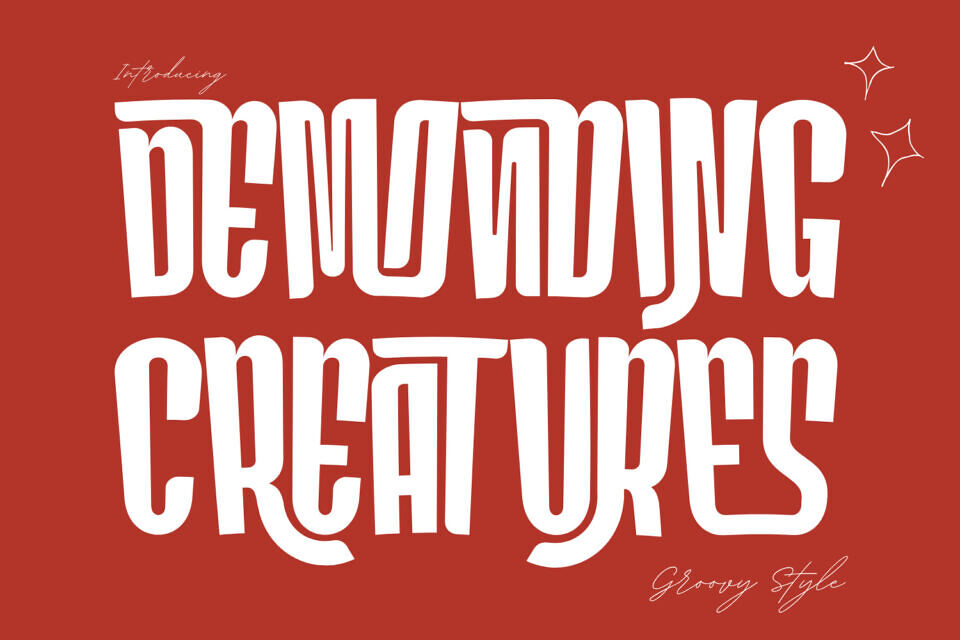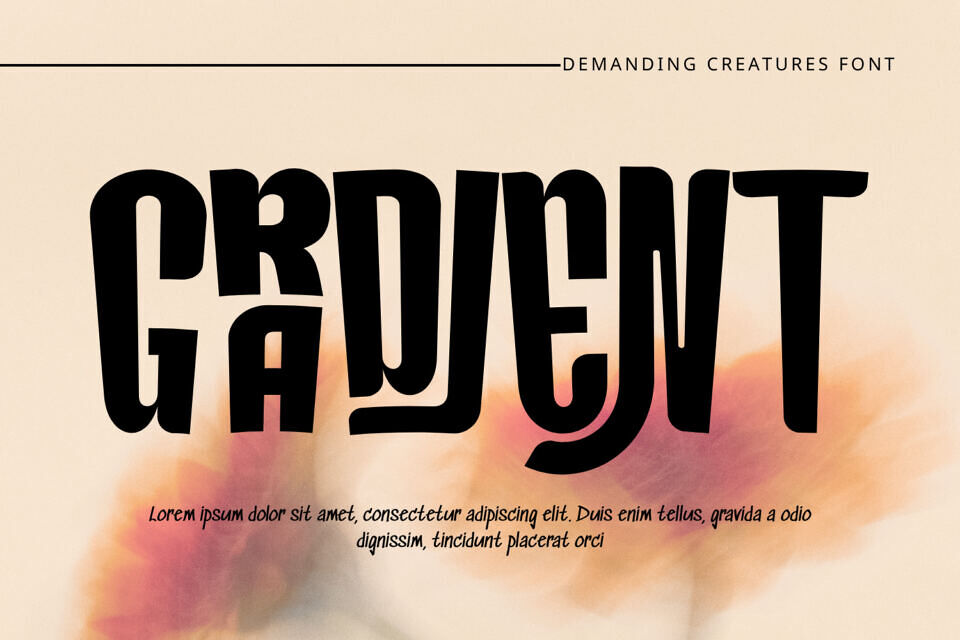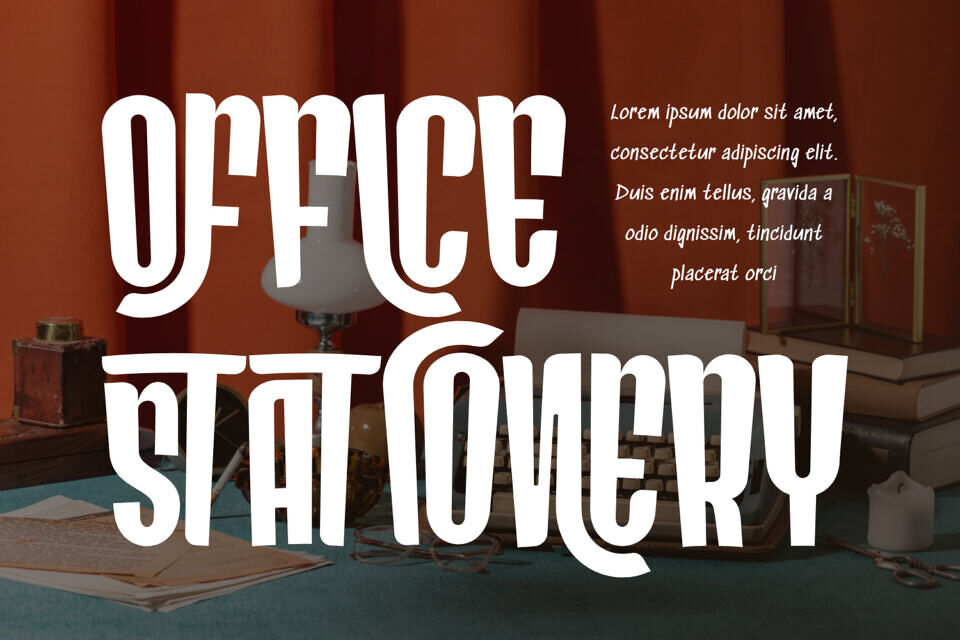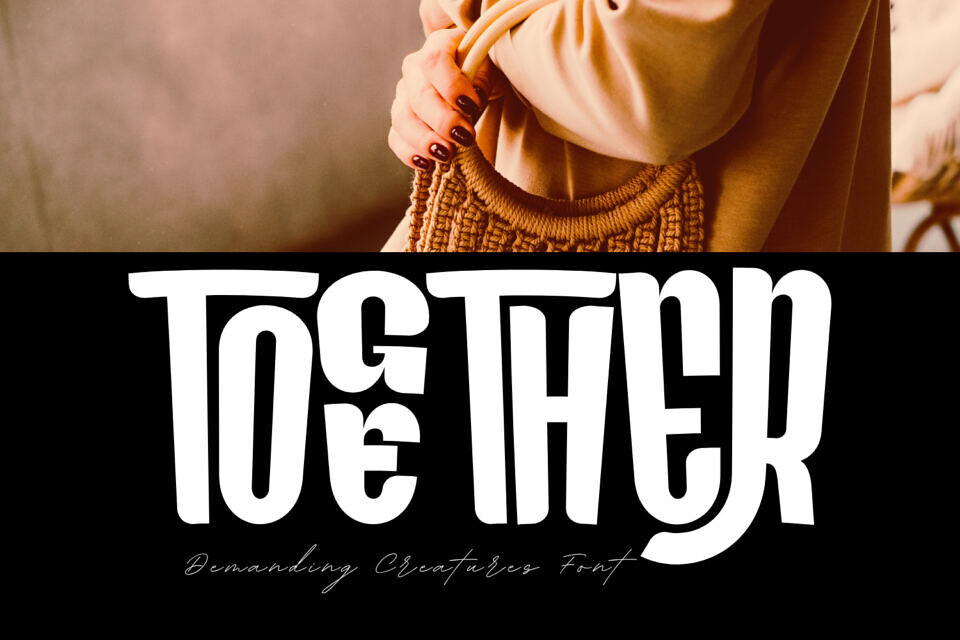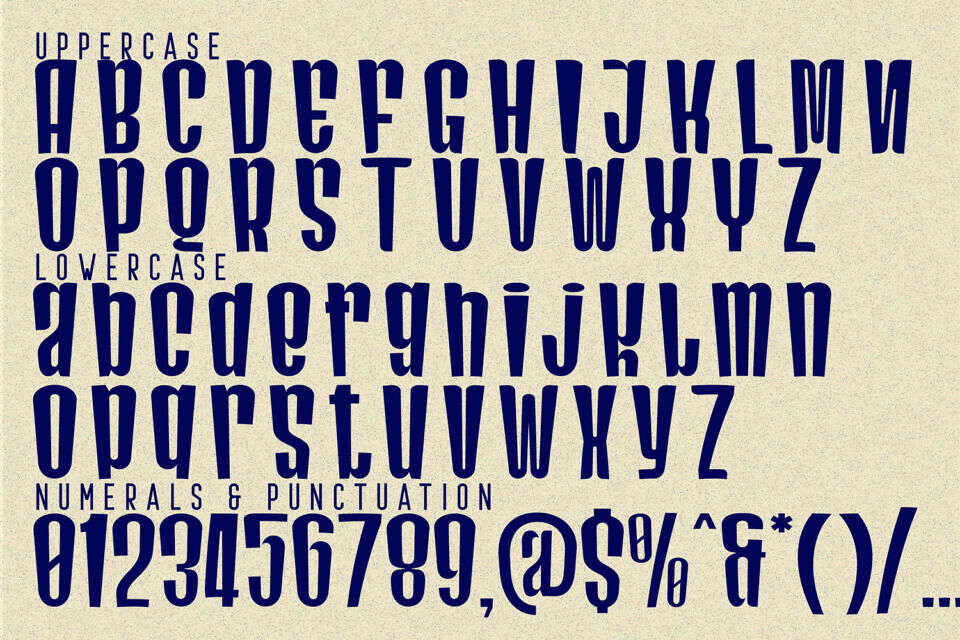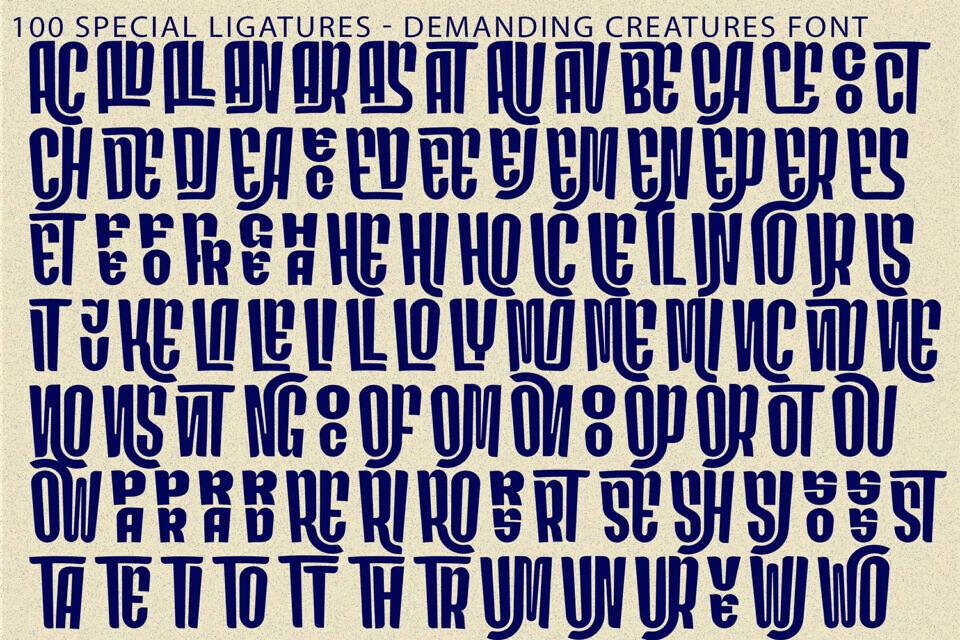
Demanding Creatures Font
Demanding Creatures is a stylish retro condensed display font inspired by vintage poster typography and groovy design aesthetics. Featuring tall, narrow letterforms with soft curves and subtle irregular details, this typeface creates a unique and eye-catching rhythm.
Its elongated structure gives a strong vertical presence, while the rounded edges add warmth and personality. Demanding Creatures strikes a perfect balance between boldness and elegance, making it ideal for posters, branding, packaging, editorial headlines, and creative projects that seek a nostalgic yet modern touch.